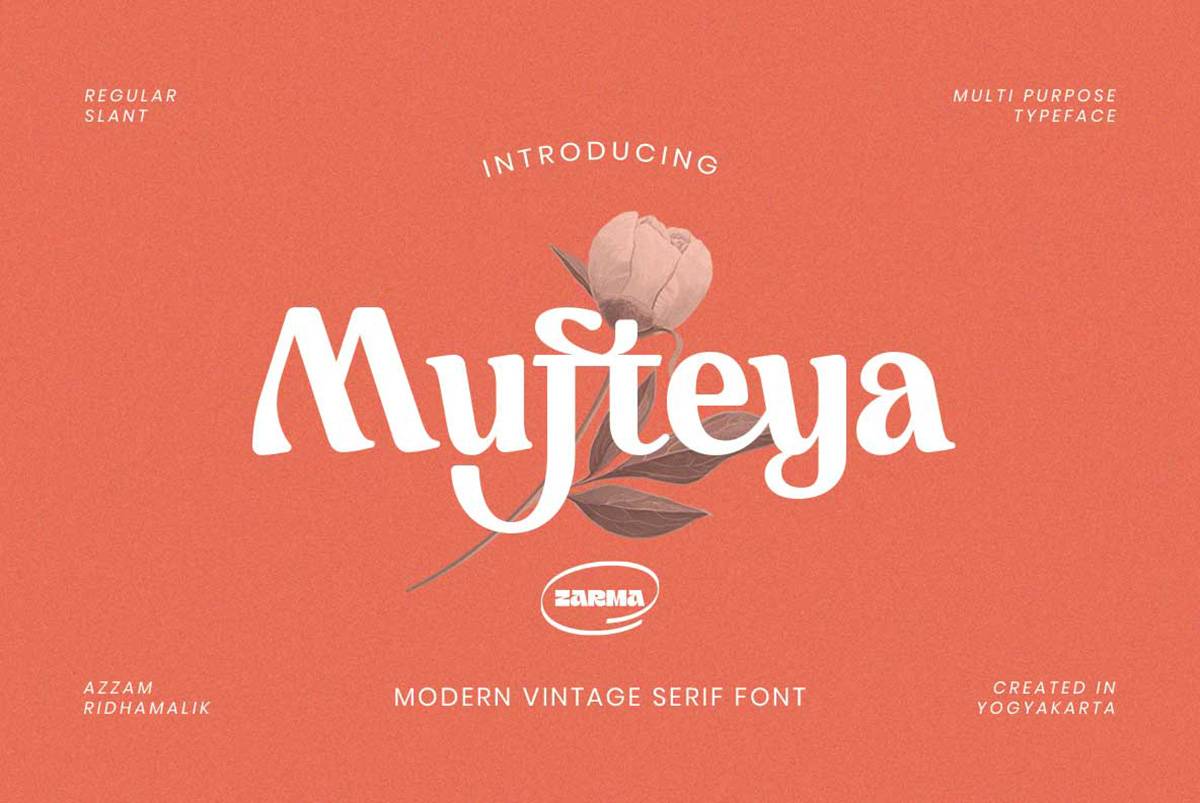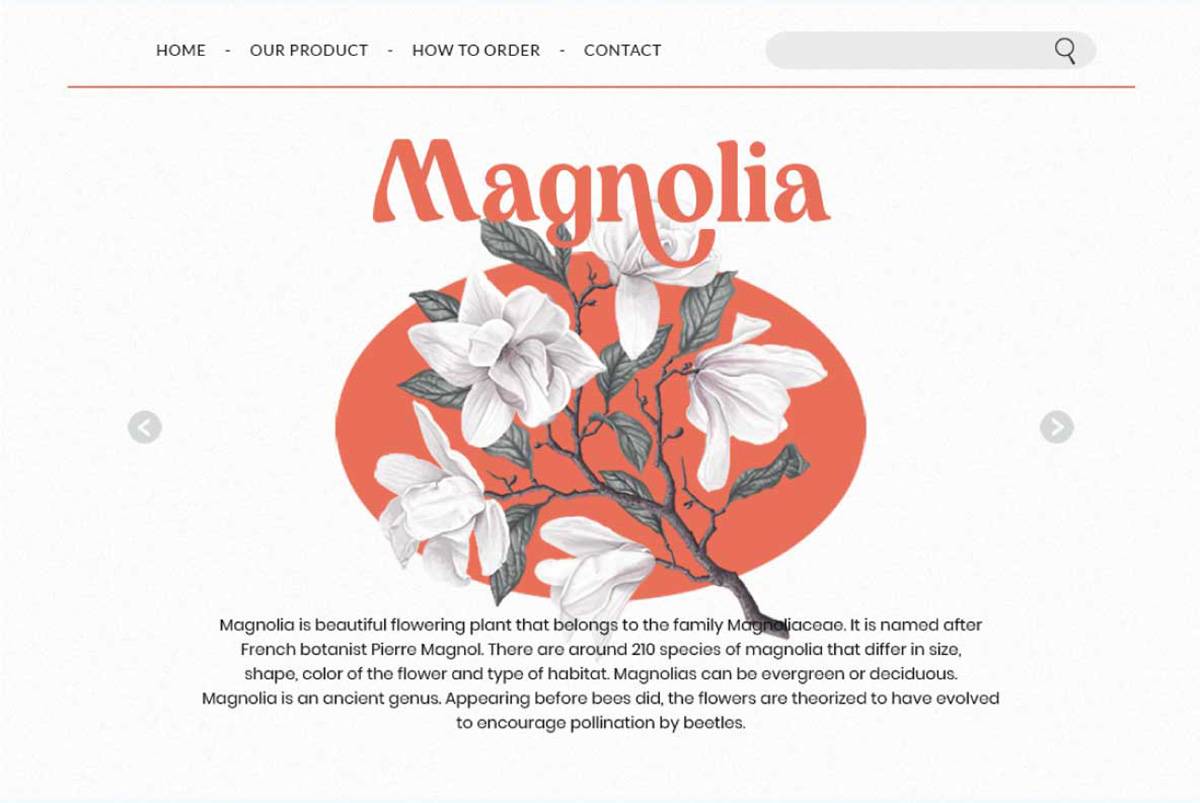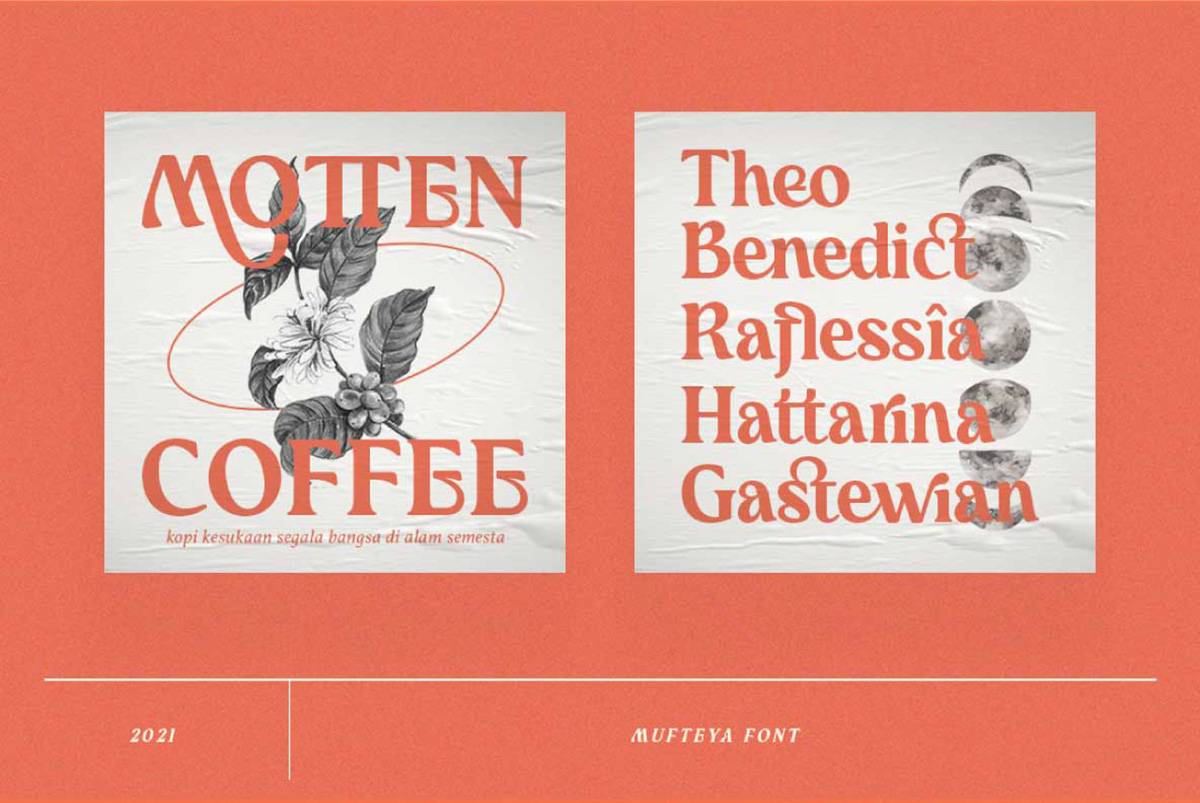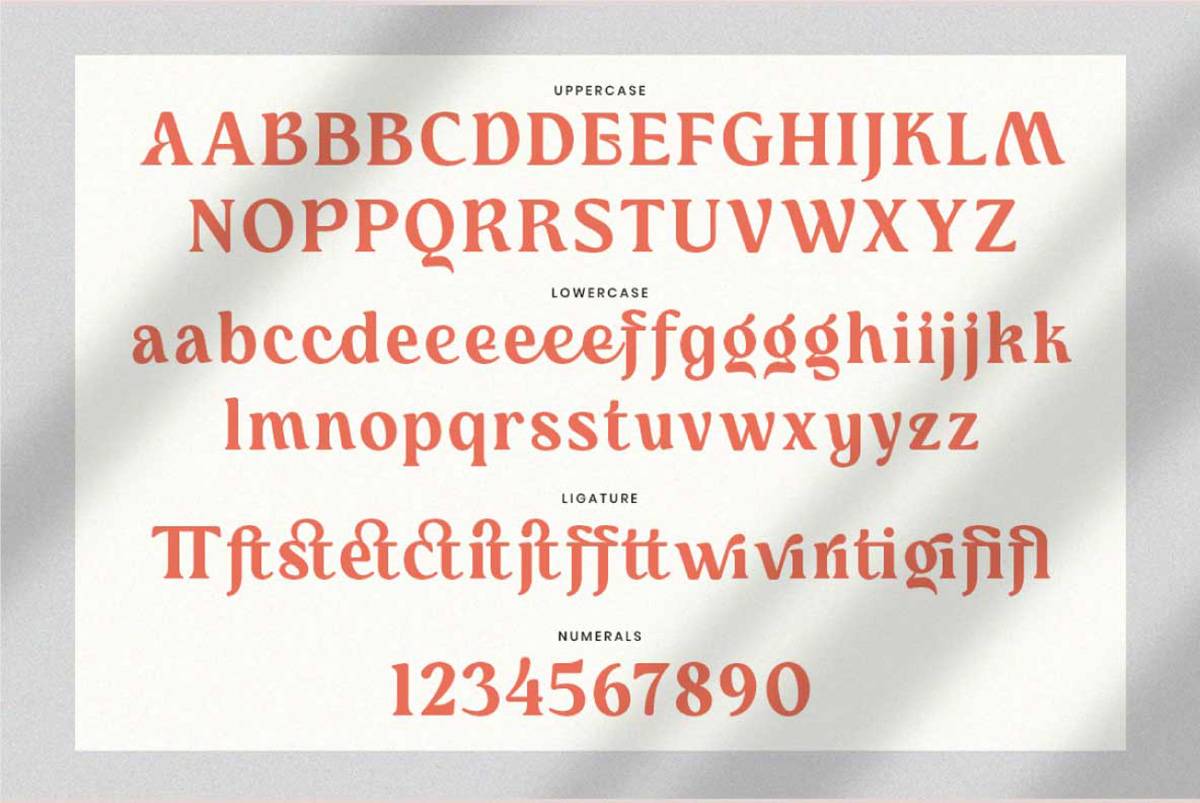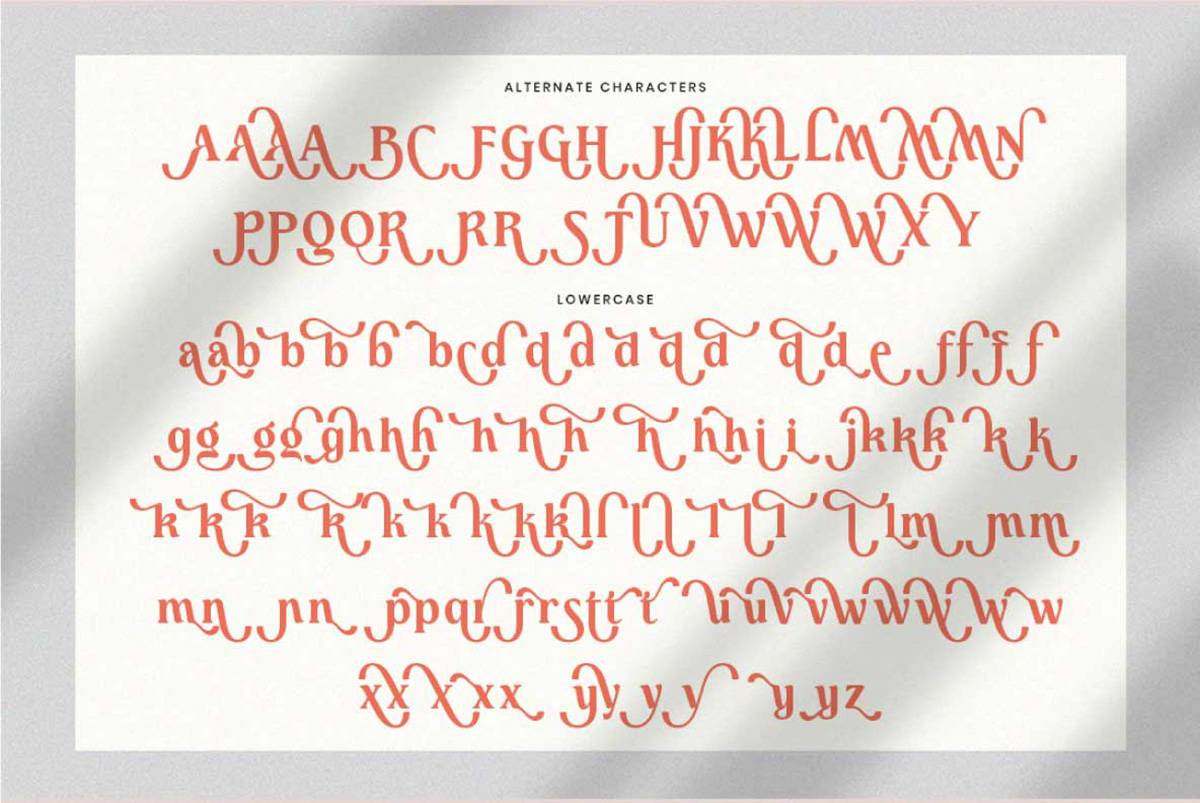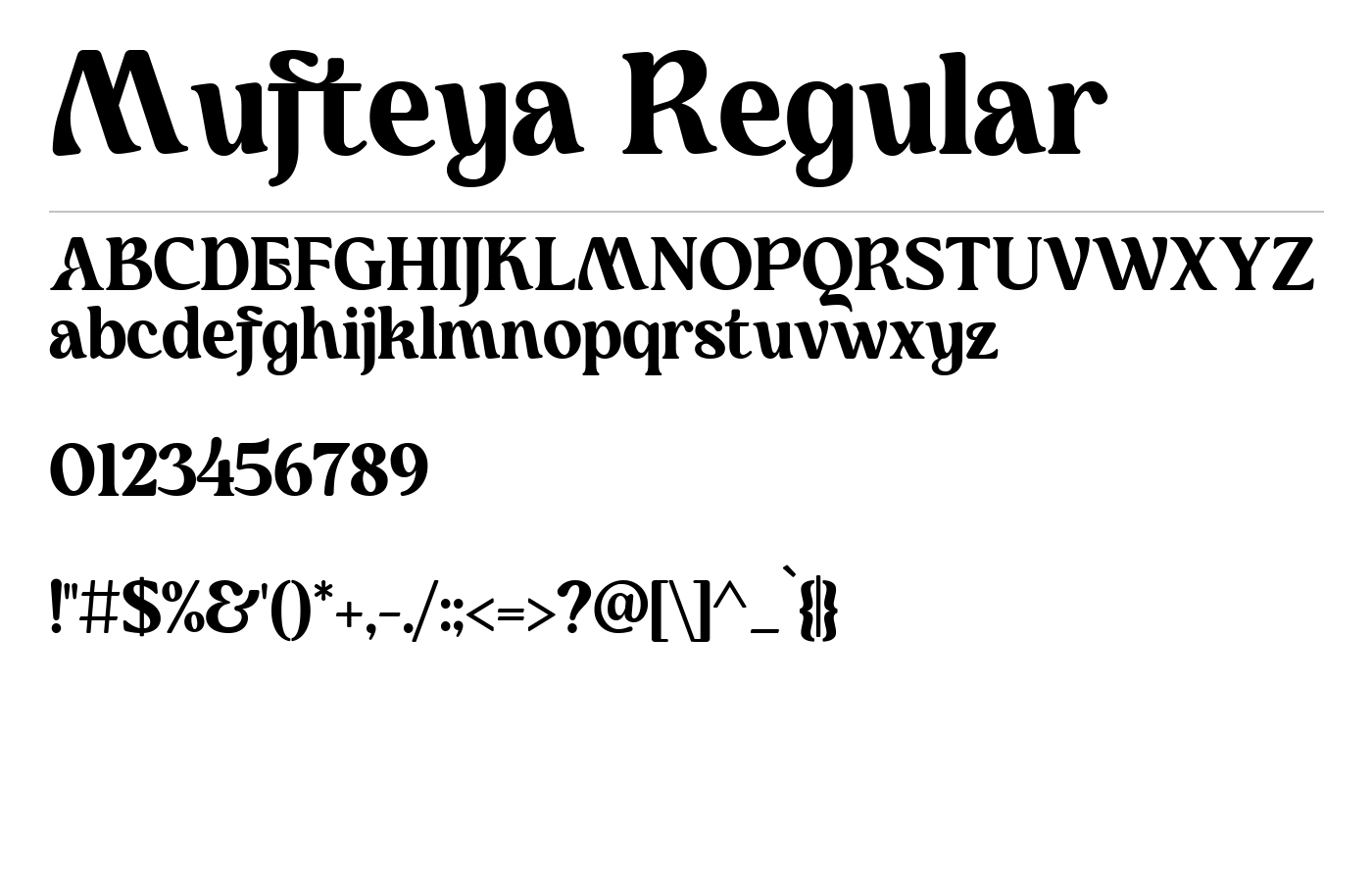
Mufteya is a distinctive serif font featuring a medium weight and moderate contrast between thick and thin strokes, lending it a bold yet elegant presence. Its unique, slightly playful letterforms with sharp, bracketed serifs and a mix of single and double-story characters create a vintage, artistic feel well-suited for creative branding, editorial headlines, and packaging that seek a sophisticated but approachable style. This font works best where a strong personality and clear readability are desired, making it ideal for fashion, luxury, and cultural projects that want to stand out with character.
Mufteya Font
About Mufteya Font
| Font family | Mufteya Font |
| Release date | 2021-10-20 |
| Designer | Azzam Ridhamalik |